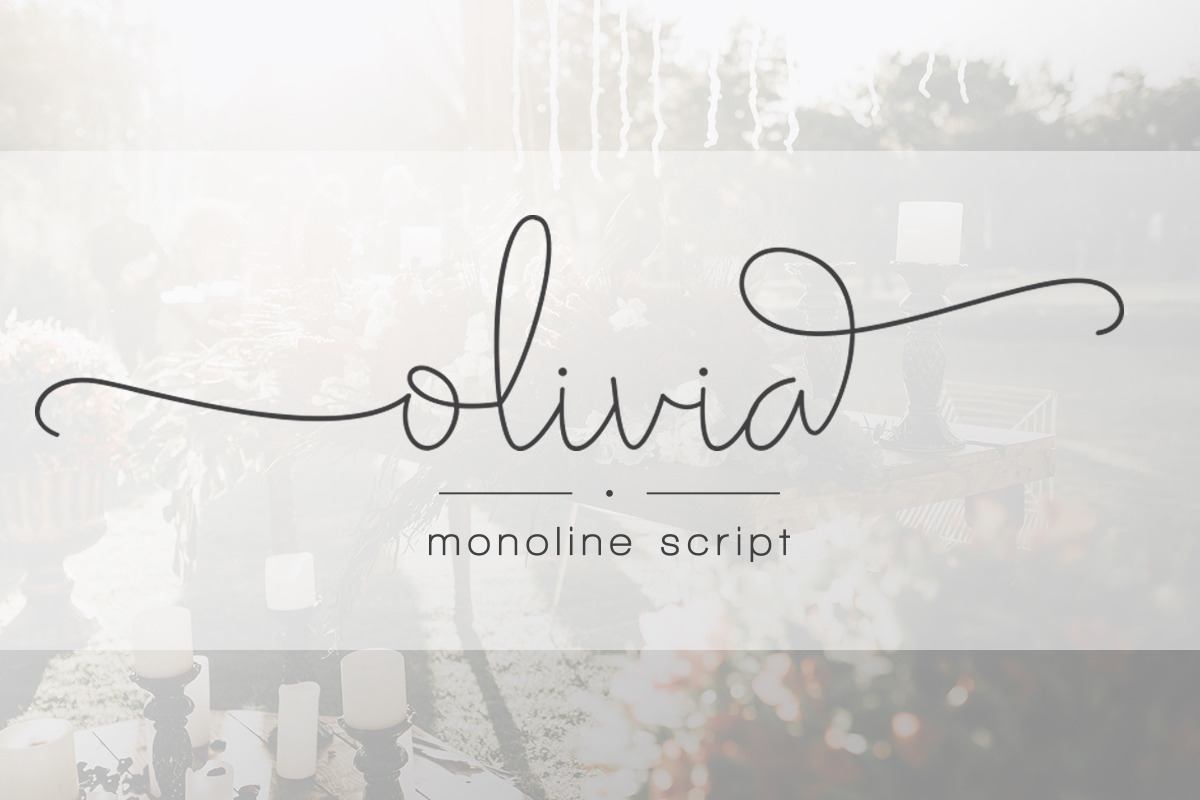
Olivia - Elegant Monoline Script Free Download
Olivia Font Free Download is an elegant monoline script typeface that radiates sophistication and grace. With its smooth curves, delicate strokes, and flowing letterforms, Olivia is perfect for wedding invitations, feminine branding, social media posts, and upscale packaging. It brings a personal yet refined touch to any design.
The monoline structure of Olivia adds a modern twist to classic calligraphy, making it both timeless and trendy. Whether you're working on a romantic quote or a luxurious logo, this script font adds charm without overwhelming your layout. Olivia Font Free Download gives you the chance to test its graceful aesthetic for personal use before committing to a commercial license.
Add a touch of elegance to your next design with Olivia — the perfect script font for those who value beauty and style.